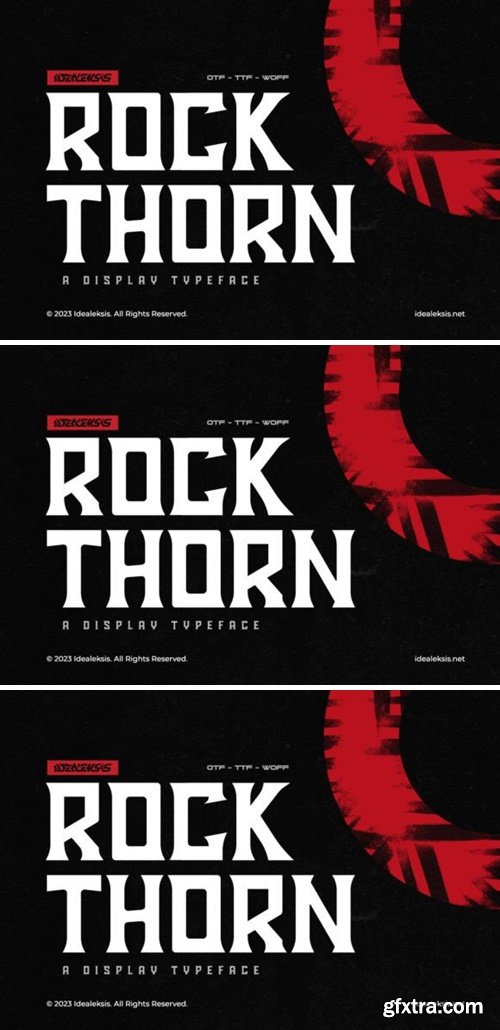
Introducing “Rockthorn”, a font that transcends boundaries and transforms your creative projects into visual masterpieces. Immerse yourself in a world where every letter is a work of art, meticulously crafted to convey sophistication and uniqueness. The font exudes a timeless charm, making your text stand out with a touch of sophistication.